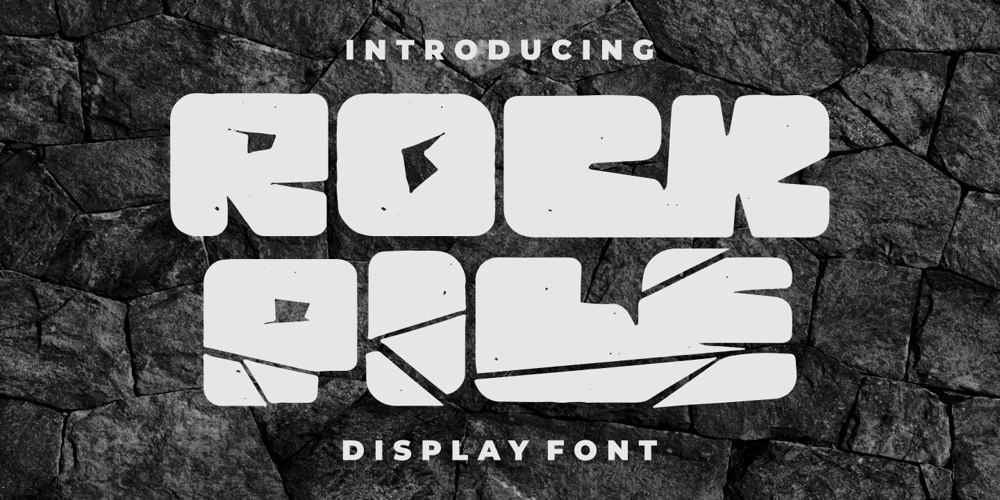
Rock Pile Font Family was designed by Putra Novembria Candra Kusuma and published by Putracetol. Rock Pile contains 2 styles and family package options. Introducing Rock Pile is a display font. bold and rock!! This tyepeface is Unique and very suitable for logos, Tshirt, apparel, quote, handwritten quotes, product packaging, tittle header, poster, merchandise, social media, labels, branding & greeting cards.To access the alternate glyphs, you need a program that supports OpenType features such as Adobe Illustrator CS, Adobe Photoshop CC, Adobe Indesign and Corel Draw.